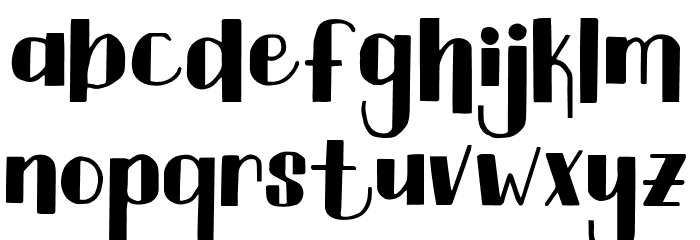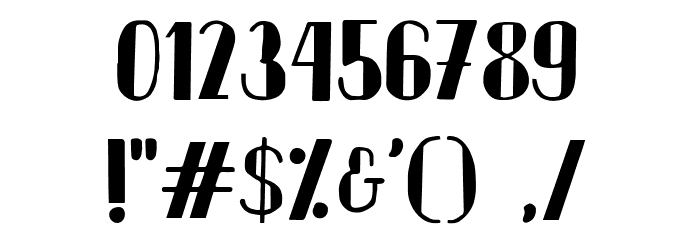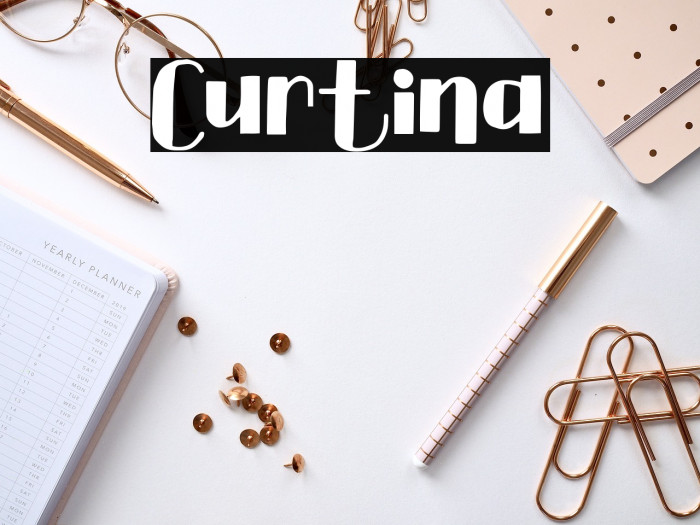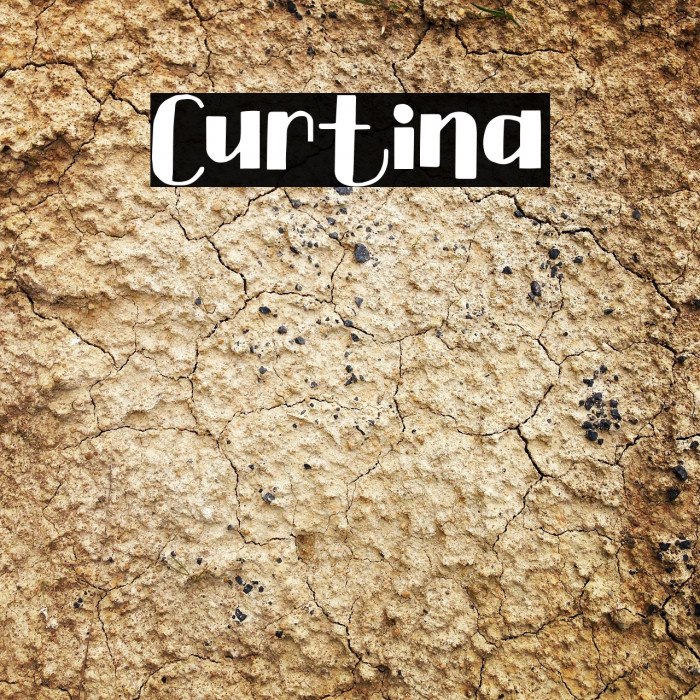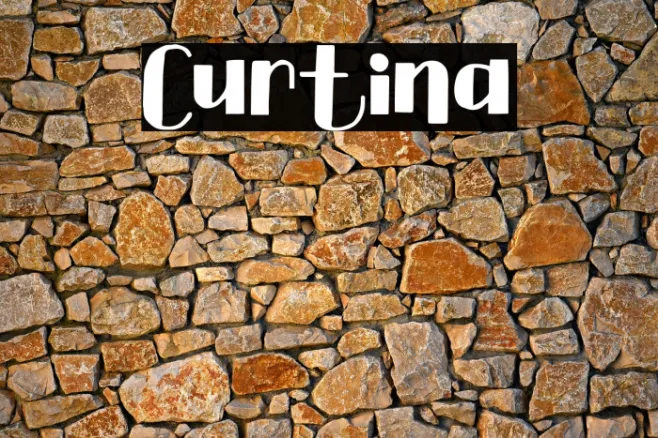
Curtina Font
This font features a unique blend of bold and slender strokes, creating a striking contrast that captures attention. The uppercase letters are tall and narrow, with some characters exhibiting playful curves and angles, adding a whimsical touch. The lowercase letters maintain a consistent style, with rounded edges and a slightly condensed form. The numerals are bold and clear, ensuring readability. Special characters are creatively designed, enhancing the font's decorative appeal. Overall, this font combines modern aesthetics with a touch of vintage charm, making it versatile for various design projects.
A bold, decorative font with contrasting strokes and playful curves.
- Proposed Projects: Ideal for branding, posters, headlines, and creative design projects that require a bold statement.
- Overall Style: Modern, Decorative